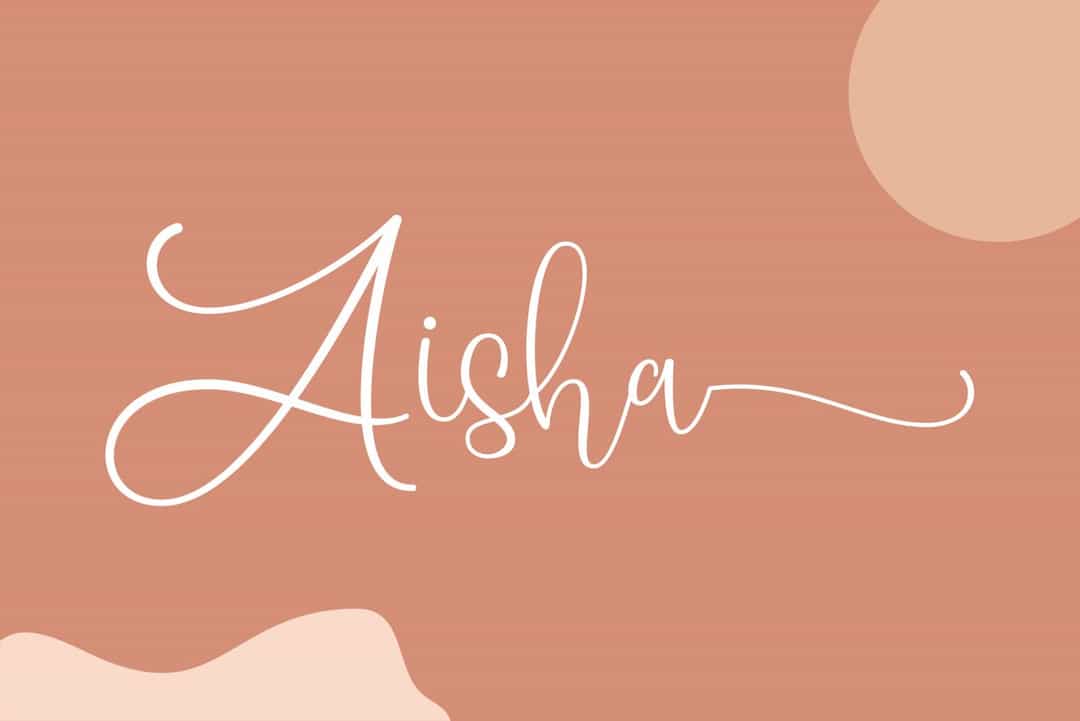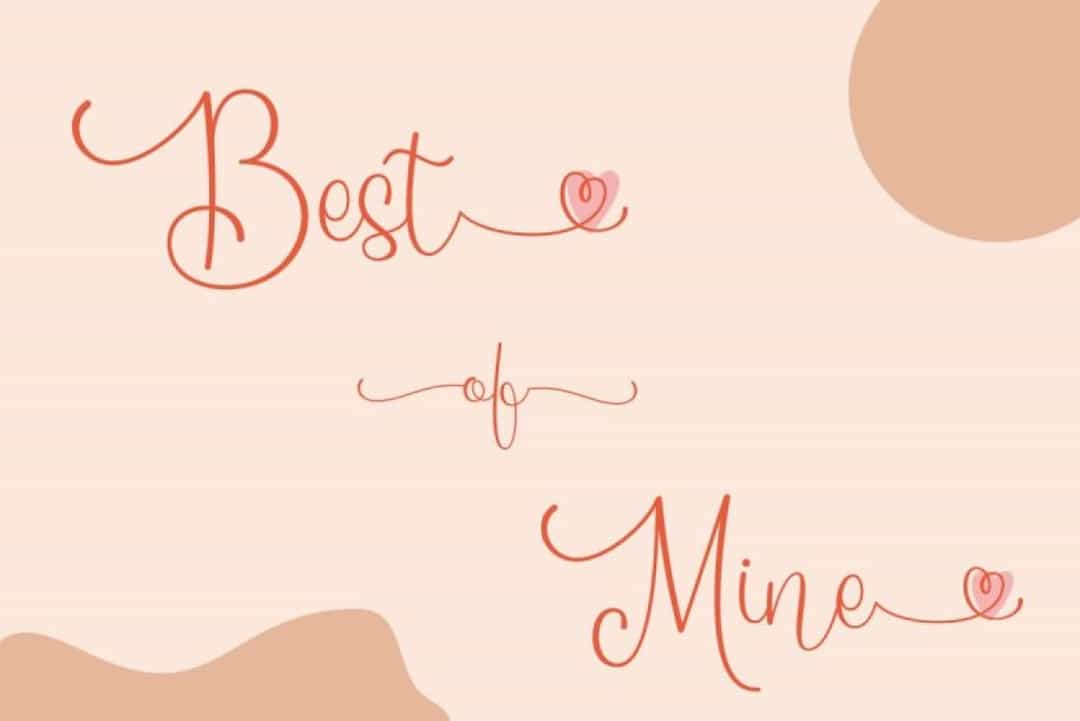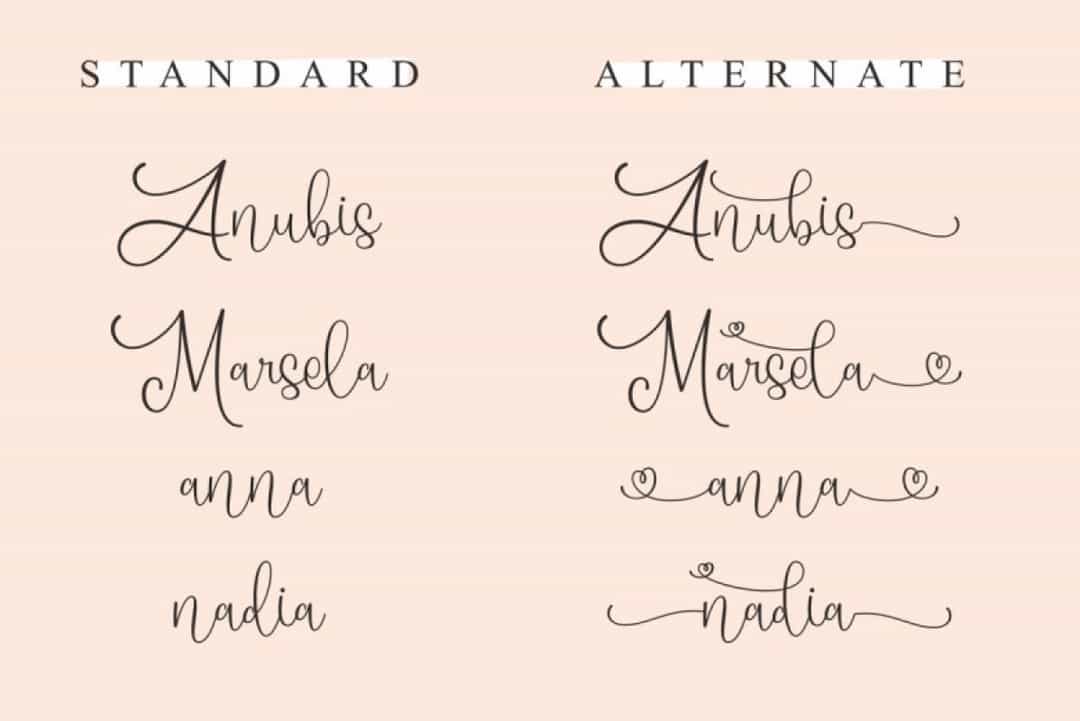
Aisha is a beautiful script font but not very versatile because it is a script font. Created with a modern calligraphic font with lots of characters to choose from to add to the handwritten look of the font. Perfect for most of the projects like wedding invitation cards, business cards posters, quotes branding for social media such as blogs or greeting cards or clothing products and many more, Aisha will definitely make your project look beautiful.